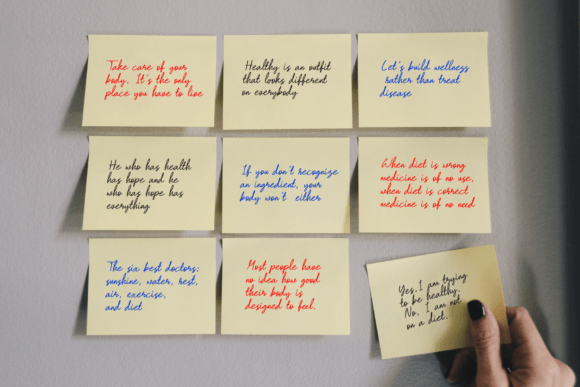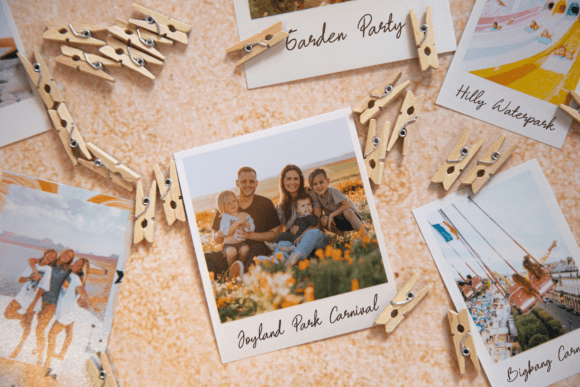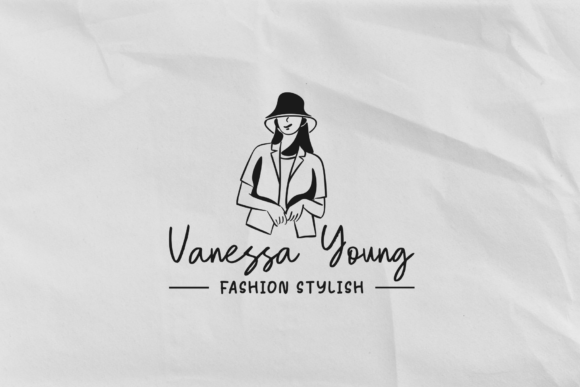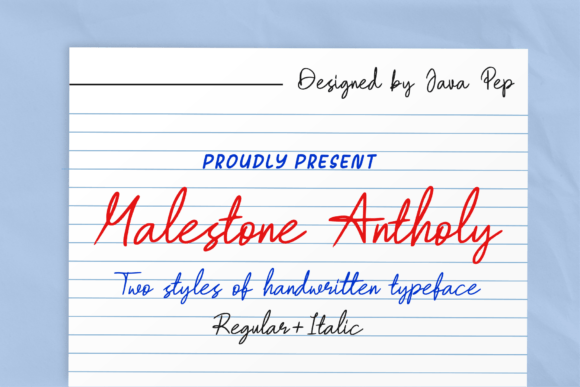
Introduction to Malestone Antholy Font
Malestone Antholy is handwritting typeface that has natural stroke and shape will make your project design more standout.
Malestone Antholy has two styles linked, regular and italic styles, you can adjust this style according your design and purposes This font is perfect for qoutes, branding, logotype, greeting card, poems, sticky notes, and etc.